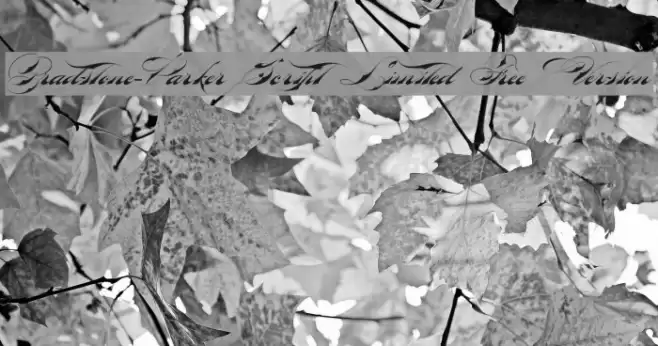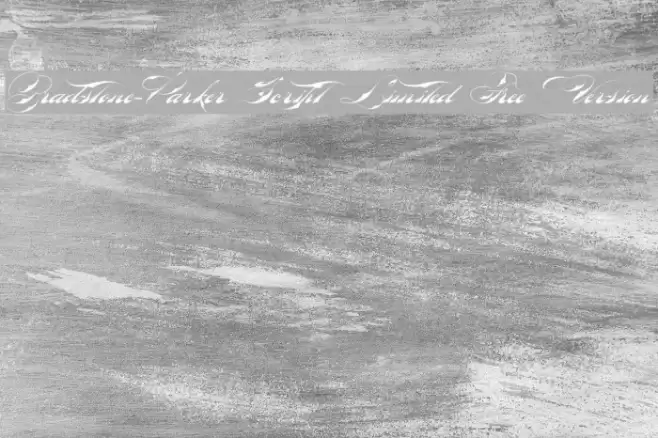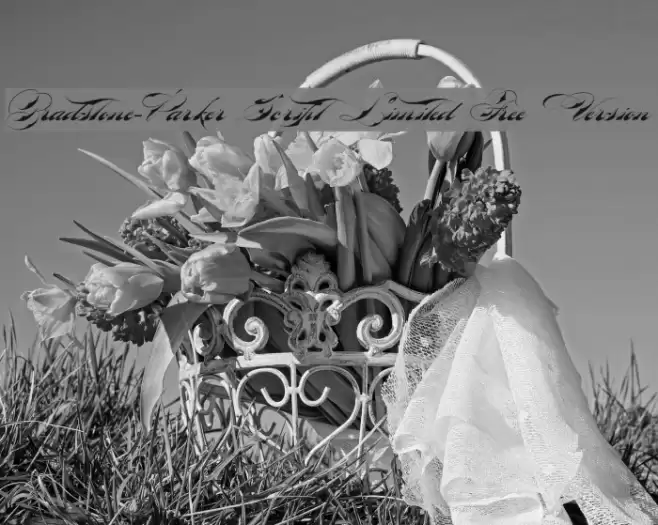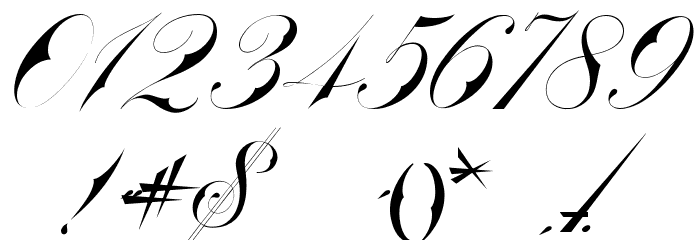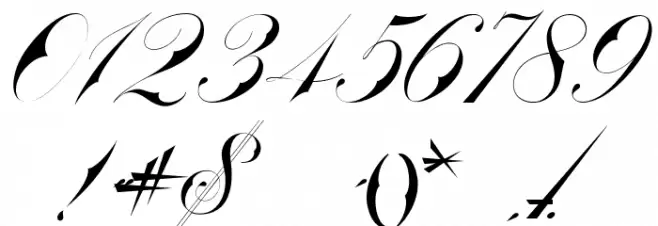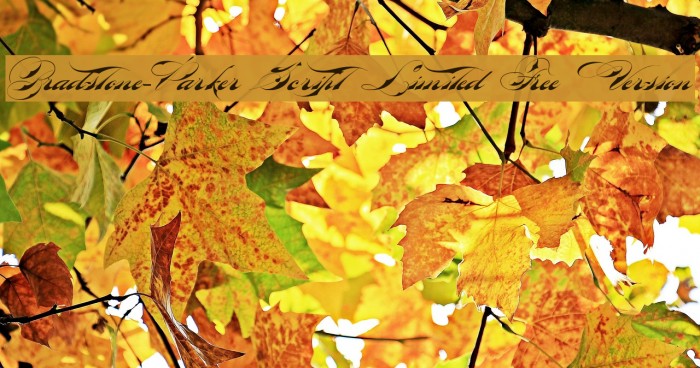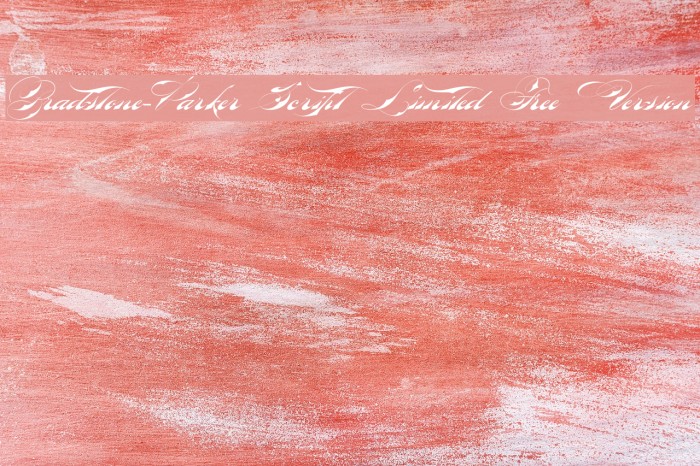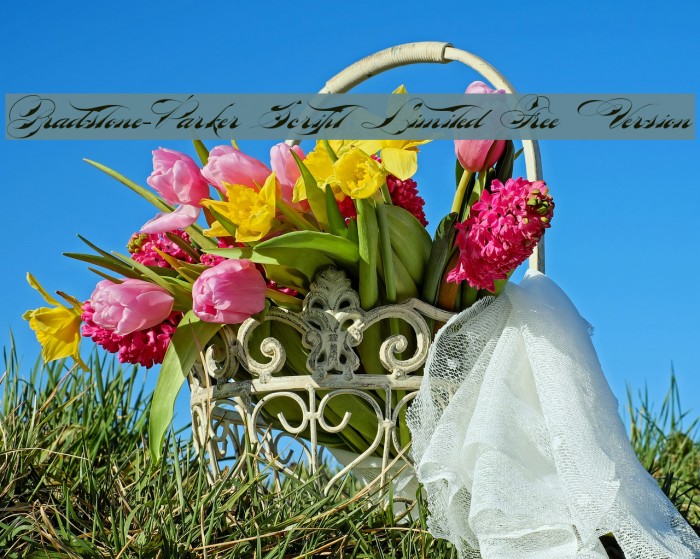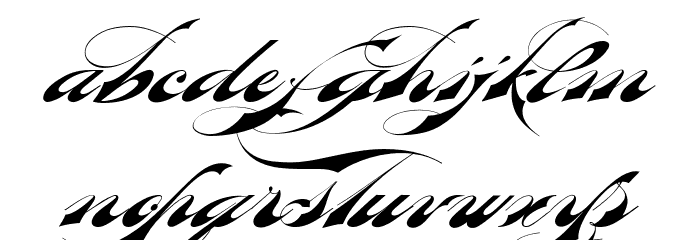
Bradstone-Parker Script Limited Free Version Font
Bradstone-Parker Script Limited Free Version Description
This font exudes elegance and sophistication with its intricate script style. The characters are adorned with elaborate swashes and flourishes, giving it a highly decorative appearance. The uppercase letters are particularly ornate, featuring extended loops and curves that add a sense of grandeur. The lowercase letters maintain a fluid and graceful form, complementing the uppercase with their own subtle embellishments. The numerals and special characters are equally stylized, ensuring a cohesive look throughout. This font is perfect for projects that require a touch of luxury and refinement.
An elegant and sophisticated script font with intricate swashes and flourishes from Script fonts.
- Proposed Projects: Ideal for wedding invitations, luxury branding, high-end product packaging, and elegant event signage.
- Use Case: Logos, Invitations, Headlines